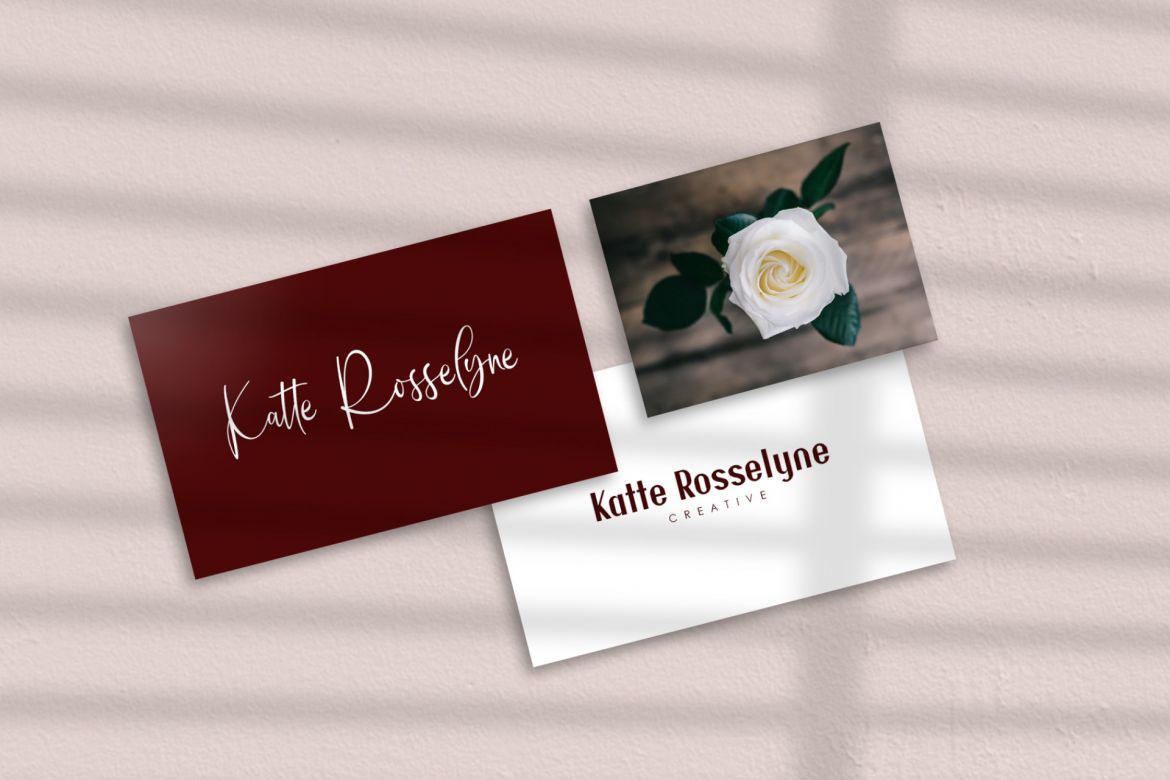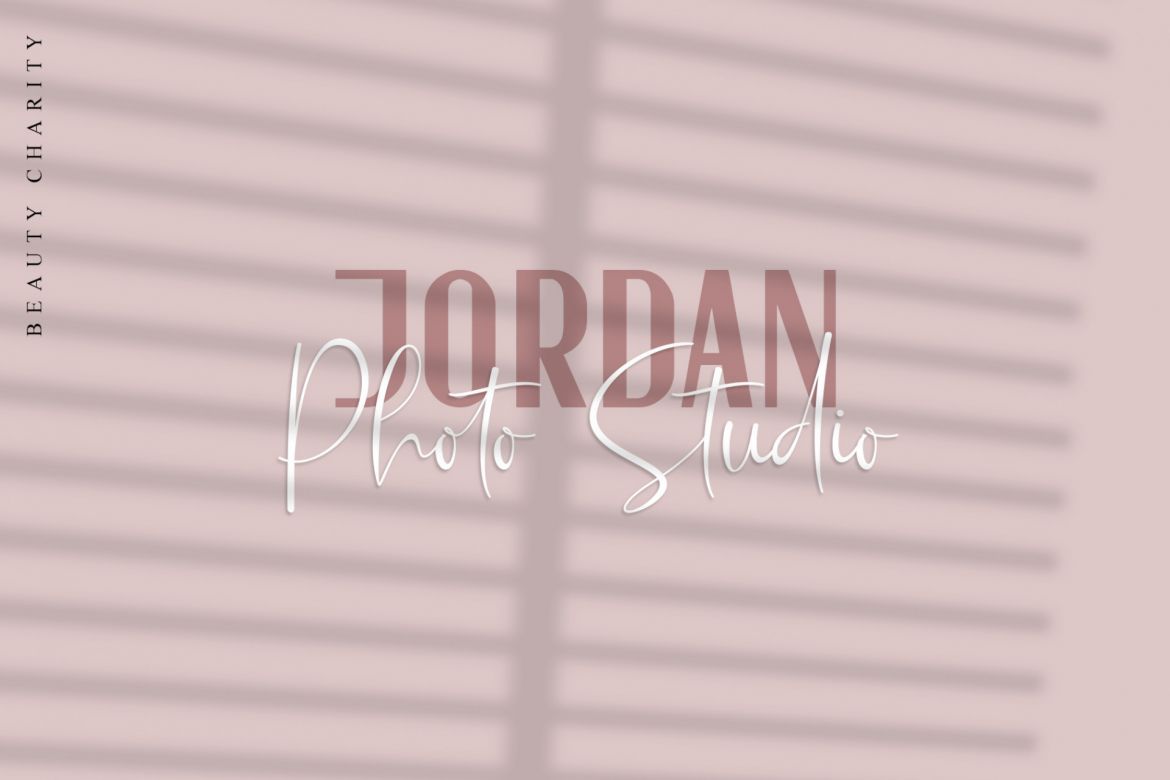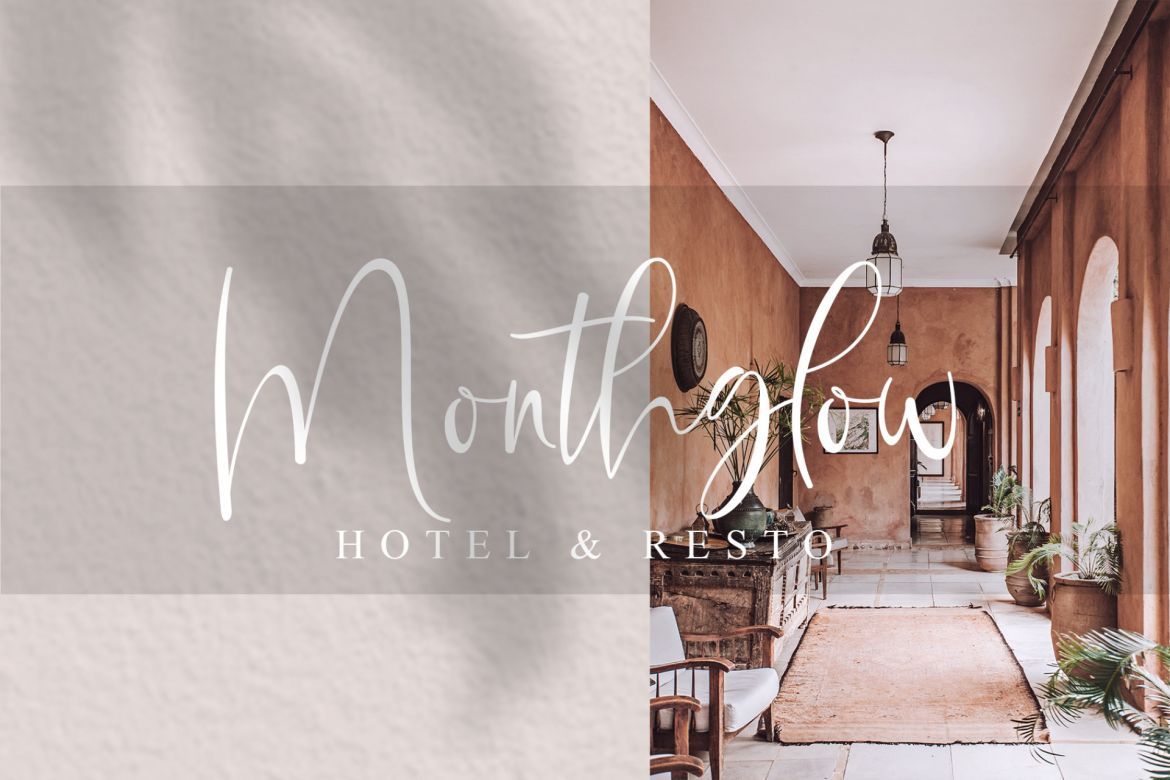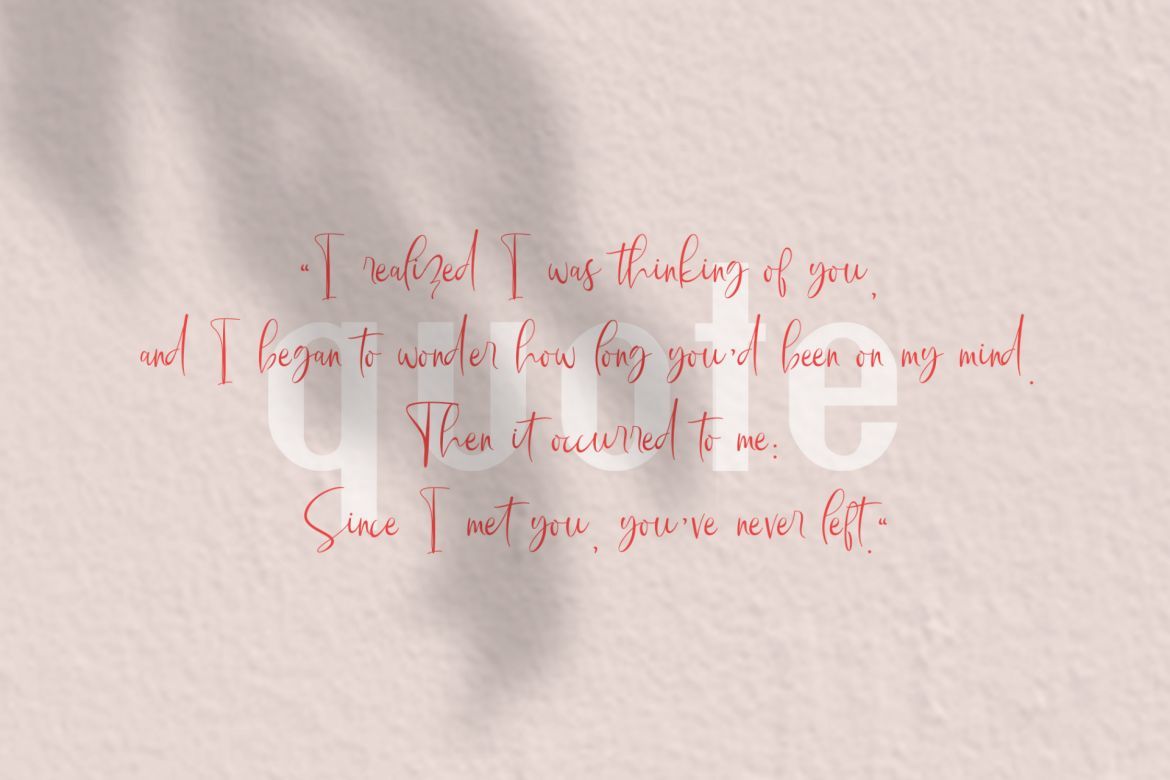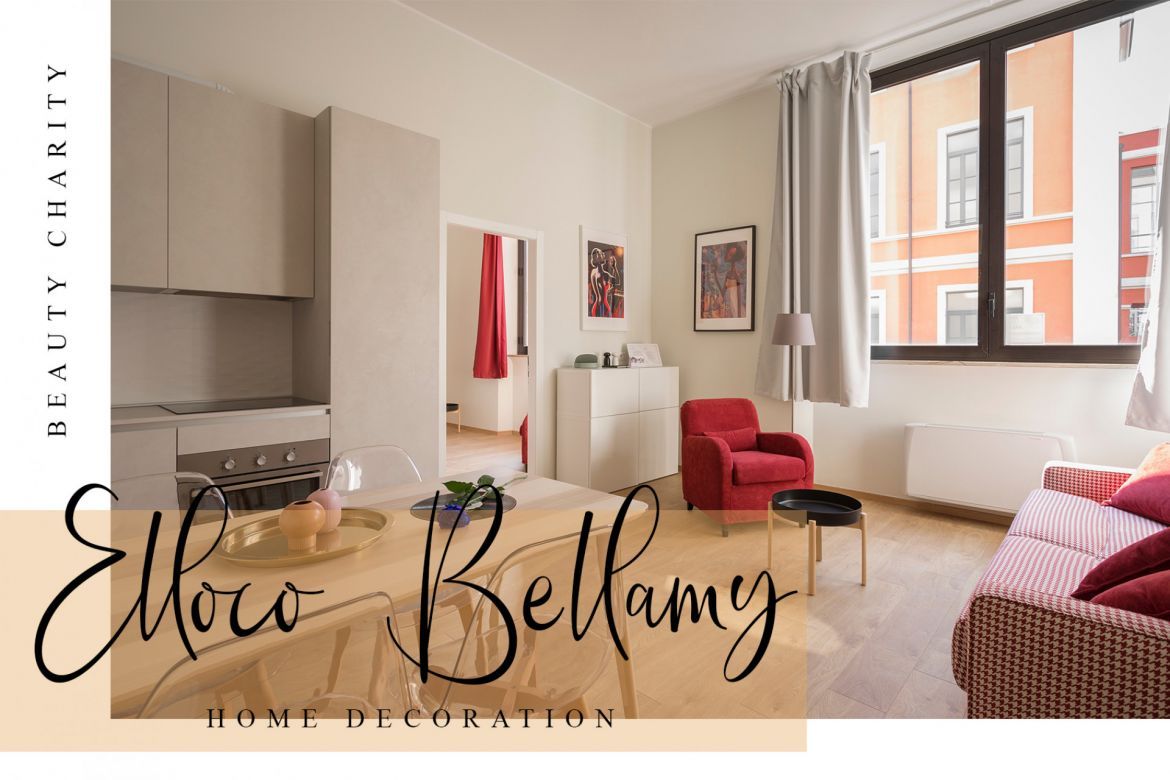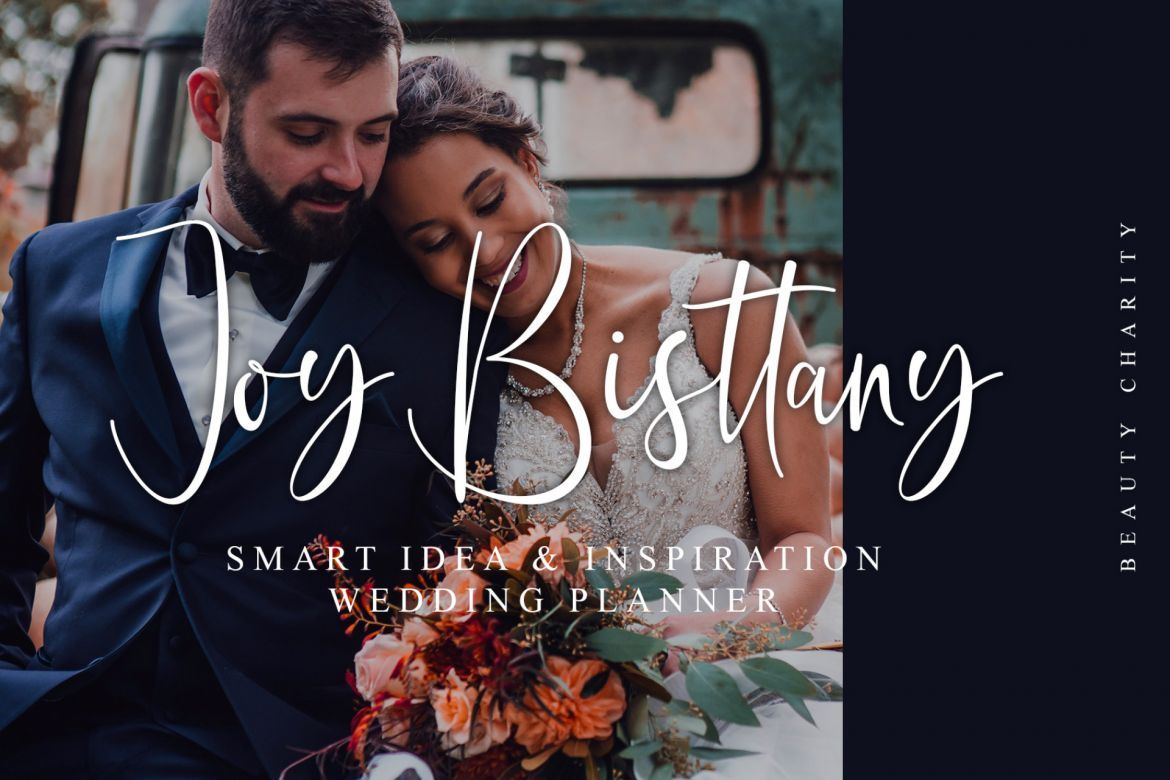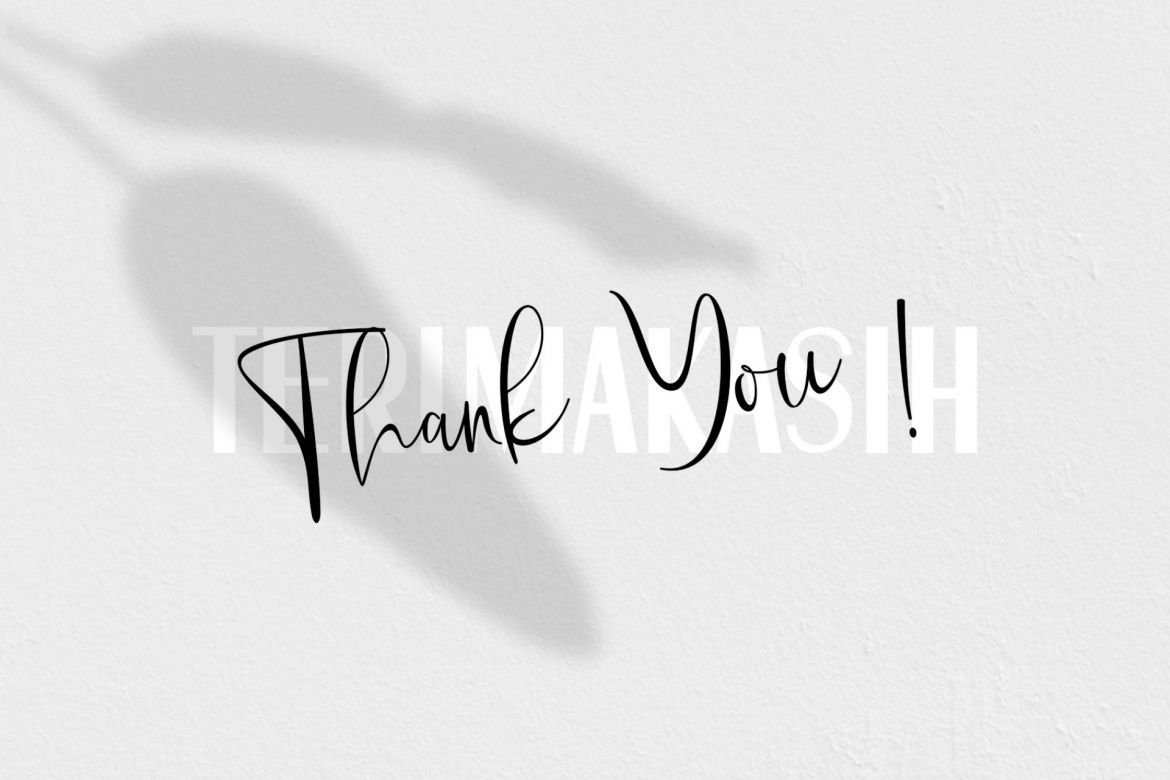
Beauty Charity Font Duo
Introducing Beauty Charity is a very carefully crafted Font Duo, a very harmonious blend of the two makes the design stand out. very suitable for various needs such as logos, business cards, magazines, invitation cards, magazine quotes and so on.